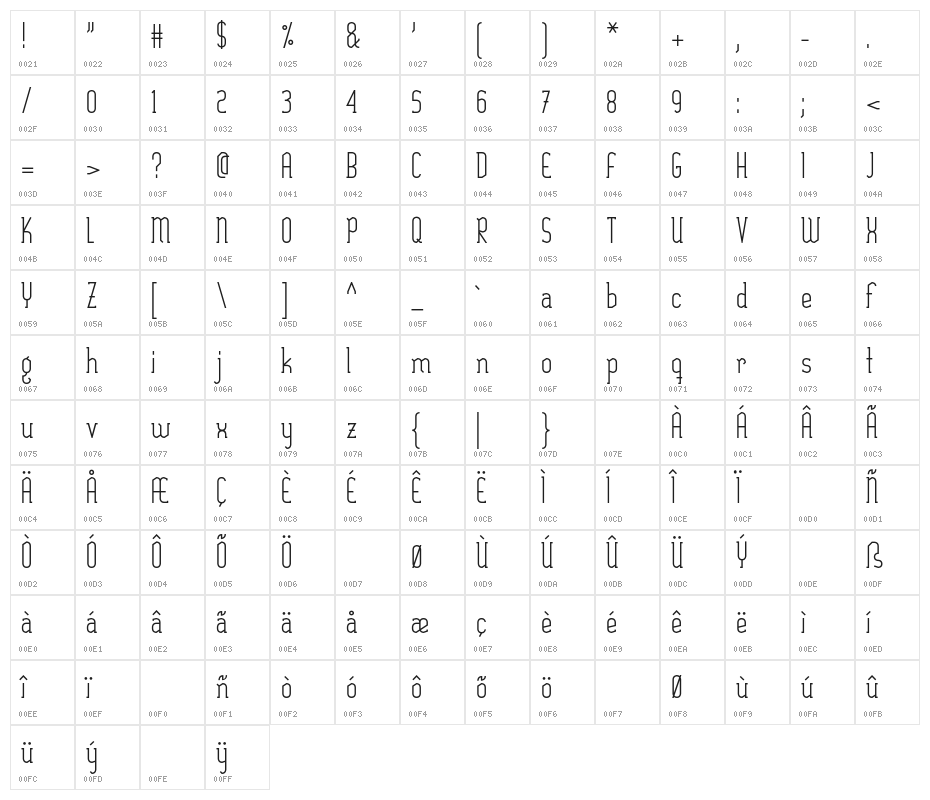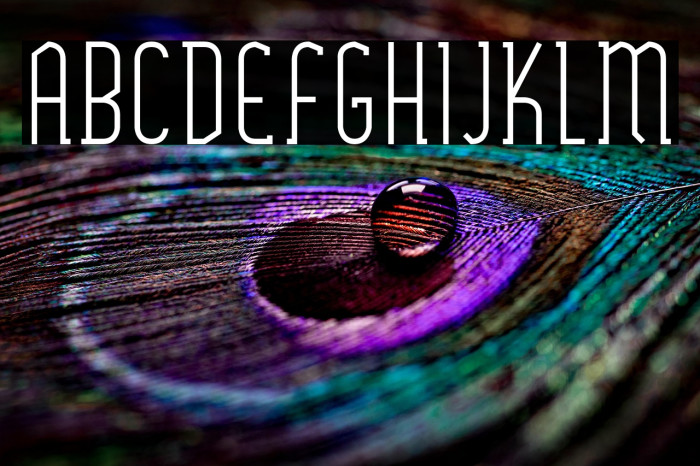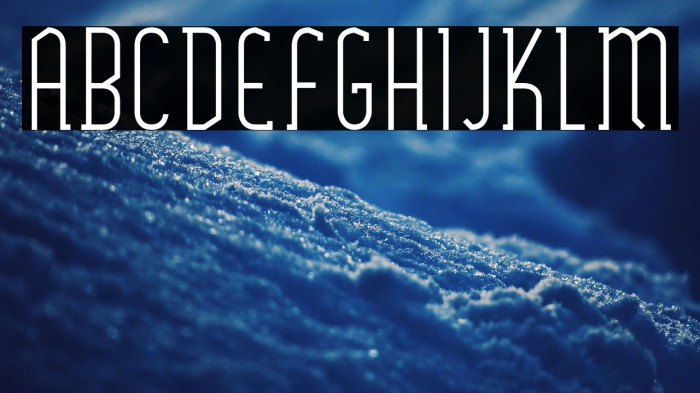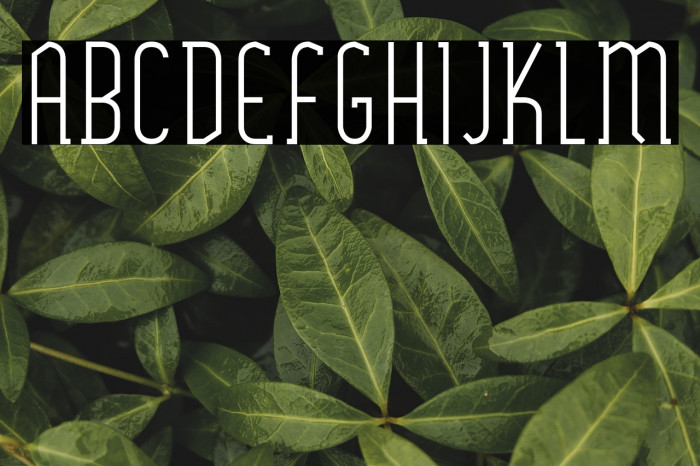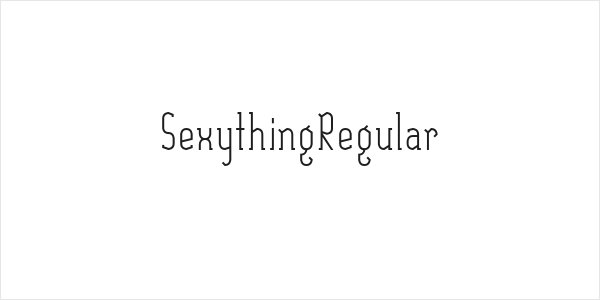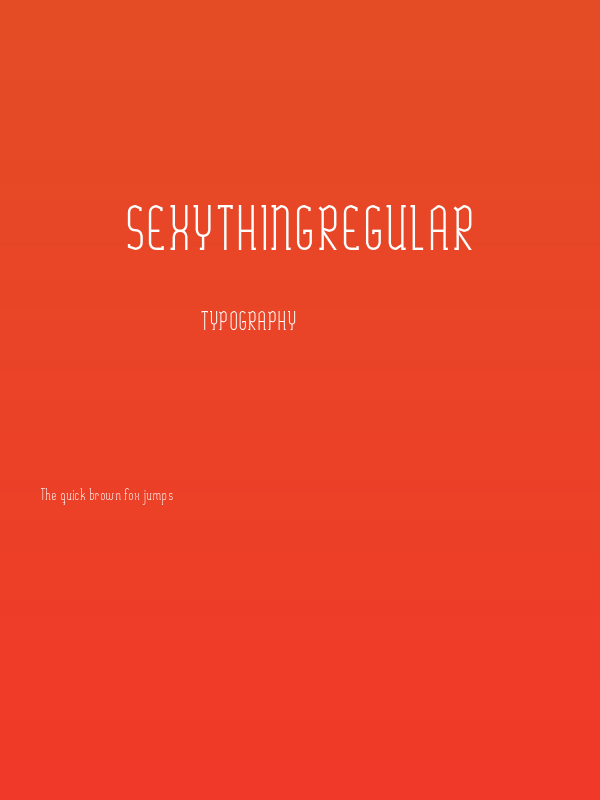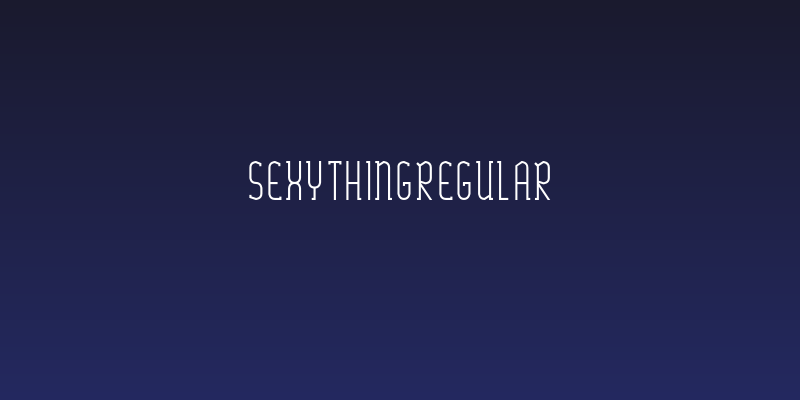
SexythingRegular Font
SexythingRegular Description
This font features a unique blend of modern and vintage elements, characterized by its tall, narrow letterforms and subtle geometric influences. The uppercase letters exhibit a distinct angularity, while the lowercase letters maintain a more rounded appearance, creating a harmonious balance. The numerals are consistent with the overall style, offering a clean and legible look. Special characters are thoughtfully designed to complement the alphabet, ensuring versatility across various applications. The font's structure is both elegant and functional, making it suitable for a range of design projects.